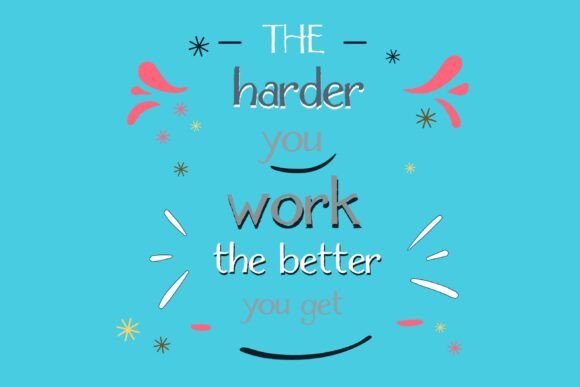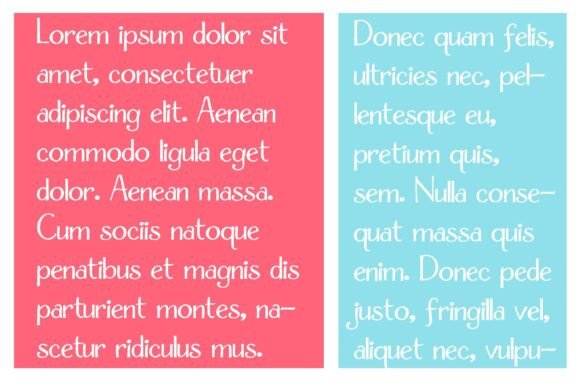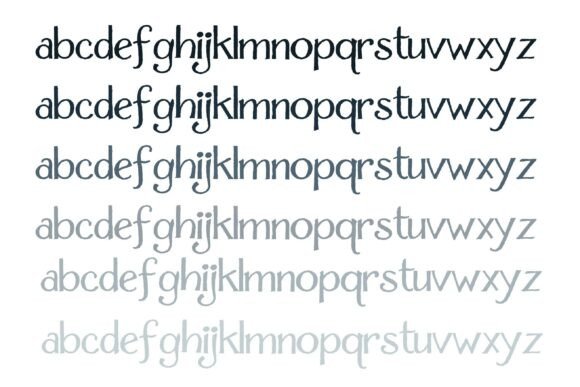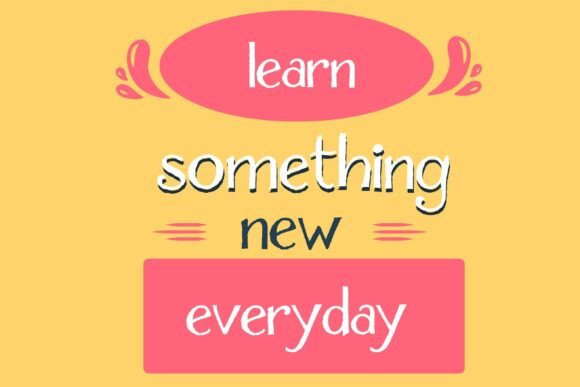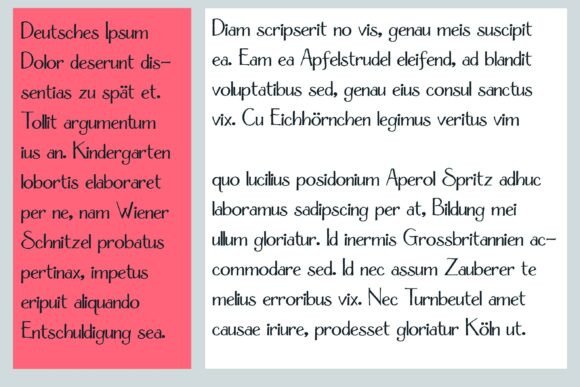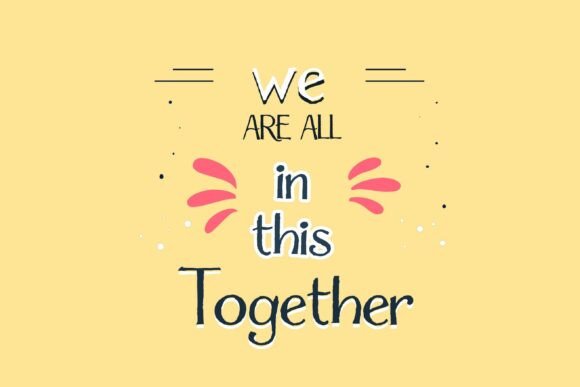
Set Sail for Creative Joy with Deckhand Font
Are you ready to infuse your designs with a carefree, summer-inspired vibe? Look no further than Deckhand, a charming font that embodies the breezy, effortless spirit of a perfect getaway. This delightful typeface is hand-sketched with a slender anatomy, featuring rhythmic, slightly elongated letterforms that exude a casual, human-centric warmth.
The Unique Character of Deckhand
Deckhand’s distinct personality is defined by its playful monolinear stroke and bouncy baseline, making it an exceptional choice for a variety of creative projects. Whether you’re designing travel branding, beach-themed event invitations, vibrant apparel headers, or lifestyle blogs, this font is sure to bring a sense of professional artisanal beauty and legendary holiday energy to your work.
Crafty and Hand-Sketched
Deckhand’s hand-sketched design gives it a unique, organic feel that’s perfect for designers and crafters looking to add a personal touch to their projects. The font’s slender anatomy and rhythmic letterforms create a sense of movement and fluidity, evoking the feeling of a carefree summer day.
Deckhand is an incredibly versatile font that can be used in a wide range of creative projects, including:
- Travel branding: Add a touch of wanderlust to your travel company’s logo or marketing materials with Deckhand’s adventurous, carefree vibe.
- Beach-themed event invitations: Make your beach wedding, party, or festival invitation stand out with Deckhand’s playful, summery feel.
- Vibrant apparel headers: Add a pop of personality to your t-shirt, hat, or tote bag design with Deckhand’s bold, eye-catching lettering.
- Lifestyle blogs: Bring a sense of warmth and approachability to your blog or social media feed with Deckhand’s friendly, human-centric design.
Why Choose Deckhand?
So why choose Deckhand for your next design project? Here are just a few reasons:
- Unique personality: Deckhand’s playful, hand-sketched design gives it a distinct personality that’s sure to set your project apart.
- Versatility: This font can be used in a wide range of creative projects, from travel branding to lifestyle blogs.
- Professional artisanal beauty: Deckhand’s slender anatomy and rhythmic letterforms create a sense of sophistication and elegance.
- Legendary holiday energy: This font is sure to evoke the feeling of a perfect summer getaway, making it perfect for projects that need a carefree, adventurous vibe.
Tips for Using Deckhand
Here are a few tips for getting the most out of Deckhand:
- Experiment with colors: Deckhand looks great in a variety of colors, from bright and bold to soft and pastel.
- Play with layout: Don’t be afraid to get creative with your text layout – Deckhand’s playful design lends itself well to experimentation.
- Pair with other fonts: Deckhand pairs well with a variety of other fonts, from serif and sans serif to script and display.
In conclusion, Deckhand is a charming font that’s sure to bring a sense of creative joy to your designs. With its unique personality, versatility, and professional artisanal beauty, this font is perfect for designers and crafters looking to add a touch of summer-inspired fun to their projects. So why wait? Set sail for creative joy with Deckhand font today!